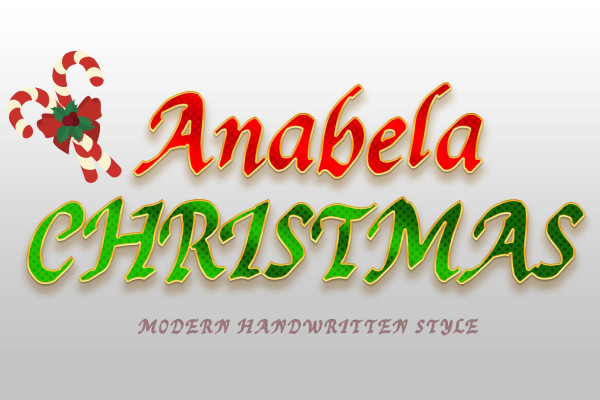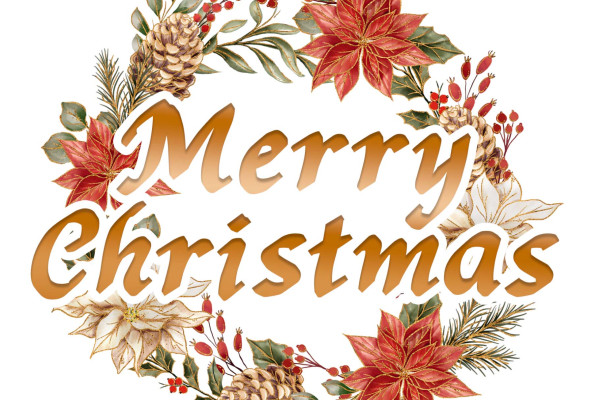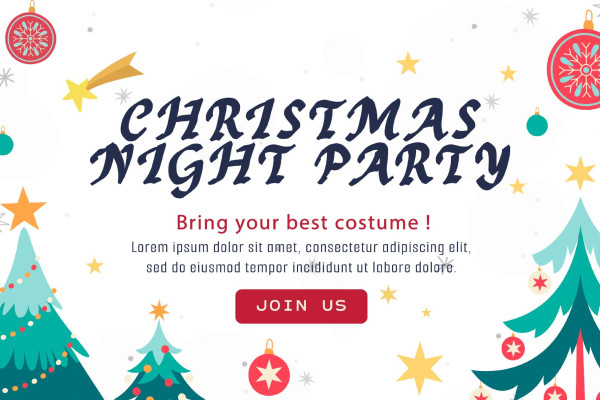
Anabela Christmas Font
Anabela Christmas Font is an elegant handwritten font. This font is equipped with uppercase, lowercase, numerals, punctuation, and multilingual support. Very suitable for business branding, Christmas, Christmas invitations, weddings, Halloween, logos, film titles, book titles, posters, banners, stickers, and others.